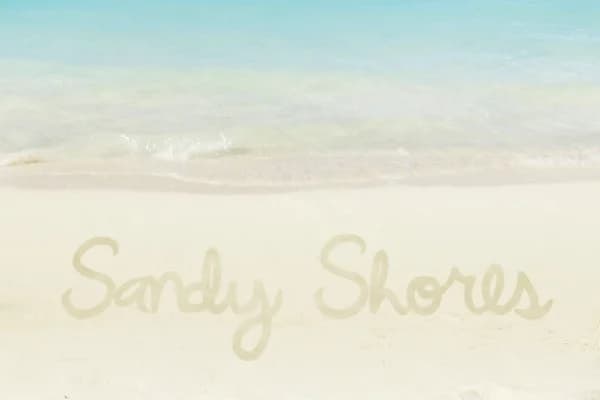
About Sandy Shores Font
Sandy Shores by Marlee Pagels is a fluid handwritten script with naturally flowing letterforms that capture the organic feel of pen-to-paper lettering. The font's tapered strokes and elegant connections create a sophisticated yet approachable aesthetic, making it ideal for wedding invitation suites, personalized greeting cards, and hand-lettered business branding. The smooth baseline and carefully crafted ligatures ensure seamless letter connections, eliminating jarring transitions while maintaining authentic handwritten charm.
This versatile script truly shines across multiple design applications. From boutique product labels and artisan packaging design to personal thank-you notes and custom social media headers, Sandy Shores brings genuine warmth and personality to any project. The neat, consistent letterforms make it equally effective whether used large for statement headers or small for detailed decorative work, while its refined tapered quality distinguishes it from more casual handwriting styles. Whether you're designing DIY craft projects, creating custom stationery, or adding signature flair to branding materials, the font's natural flow adapts beautifully to both formal and creative contexts.
The technical execution is impressive, with generous glyph support and seamless ligatures that enhance the connected, flowing nature of the letterforms, ensuring professional results across various design platforms and output methods. Get Sandy Shores on Creative Fabrica and bring a touch of handcrafted elegance to your creative projects.
Sandy Shores Font is a script font that shines as a display or heading face. Pair it with a clean sans-serif or serif font for body text β the contrast creates a clear hierarchy while the two styles stay balanced and easy to read.